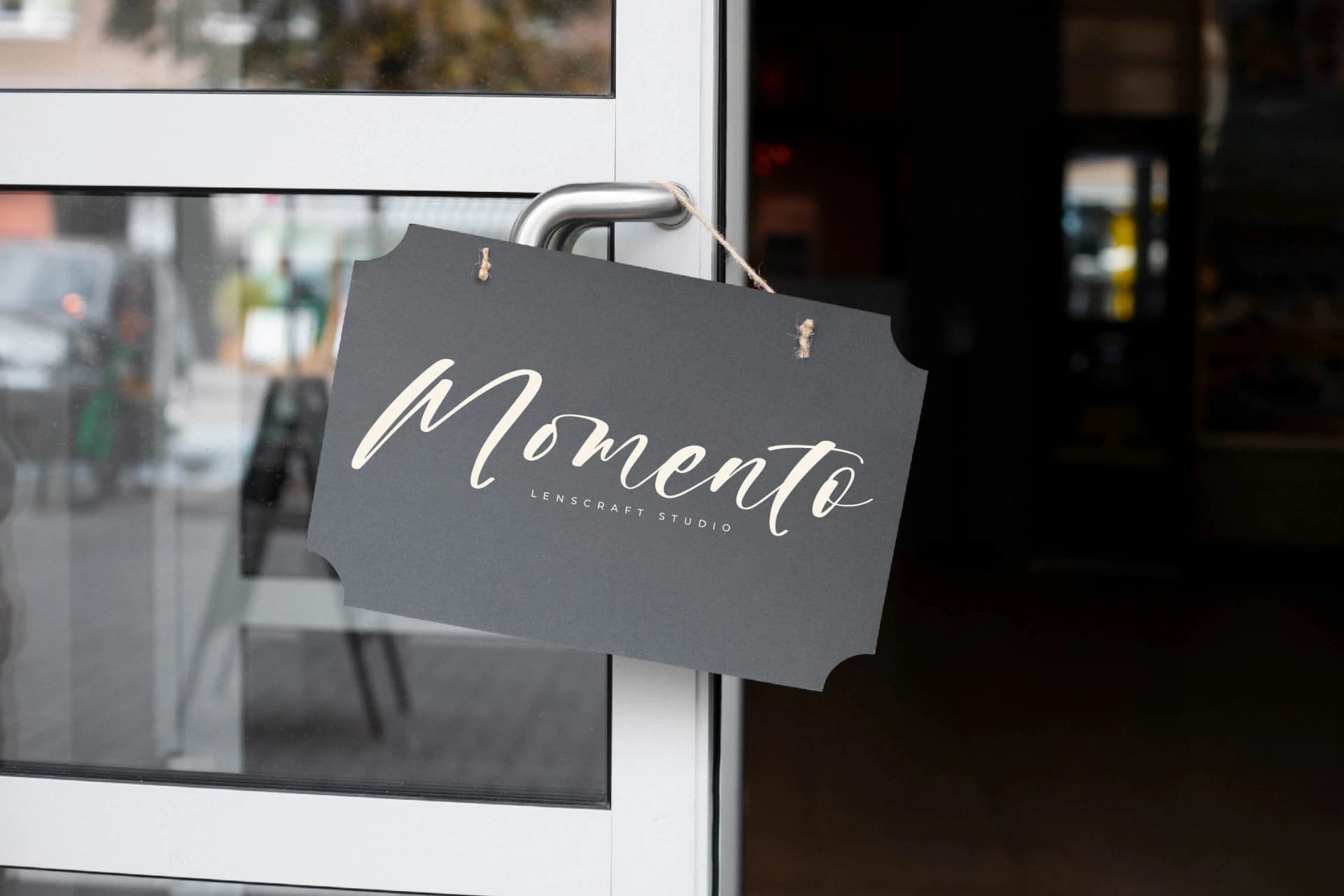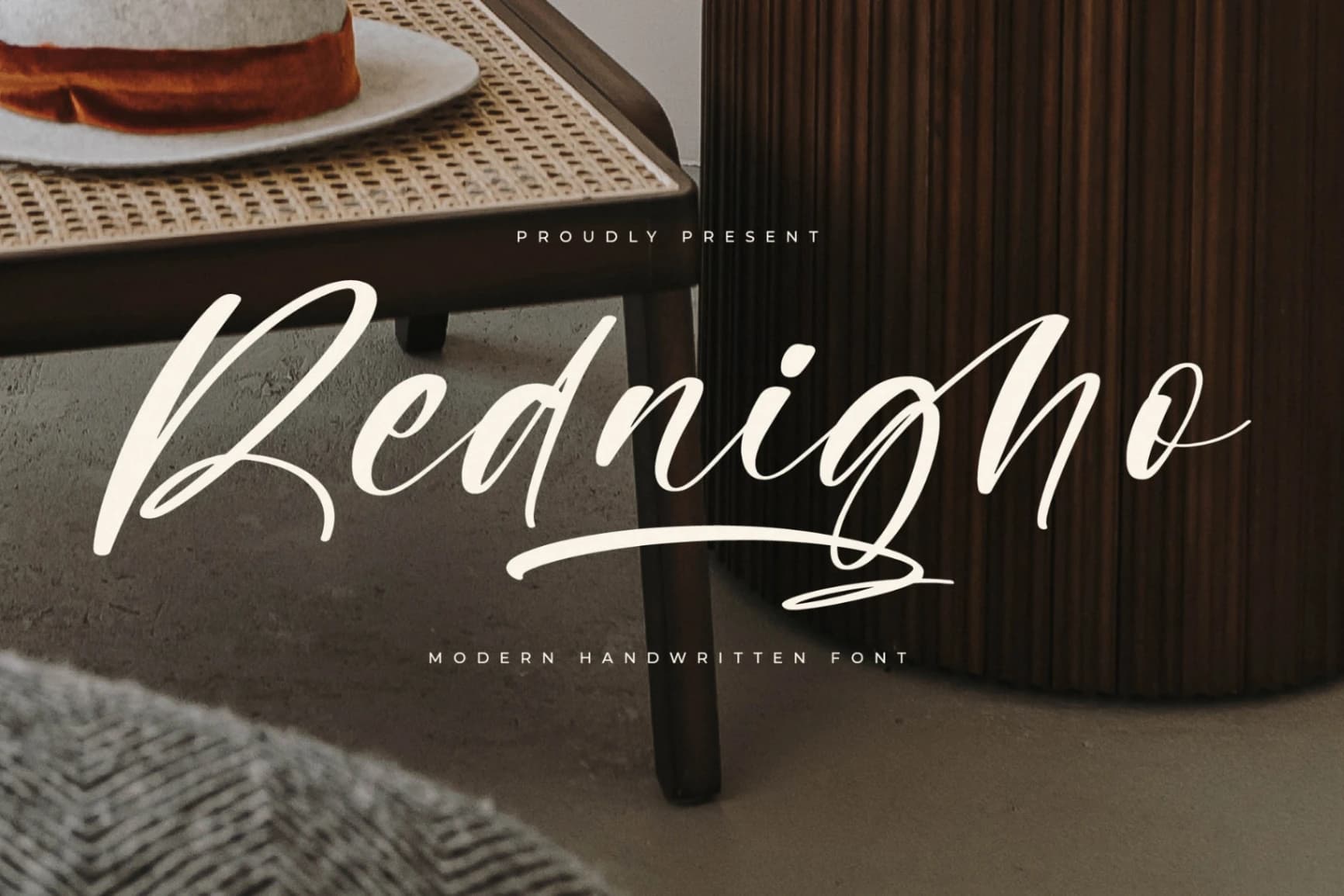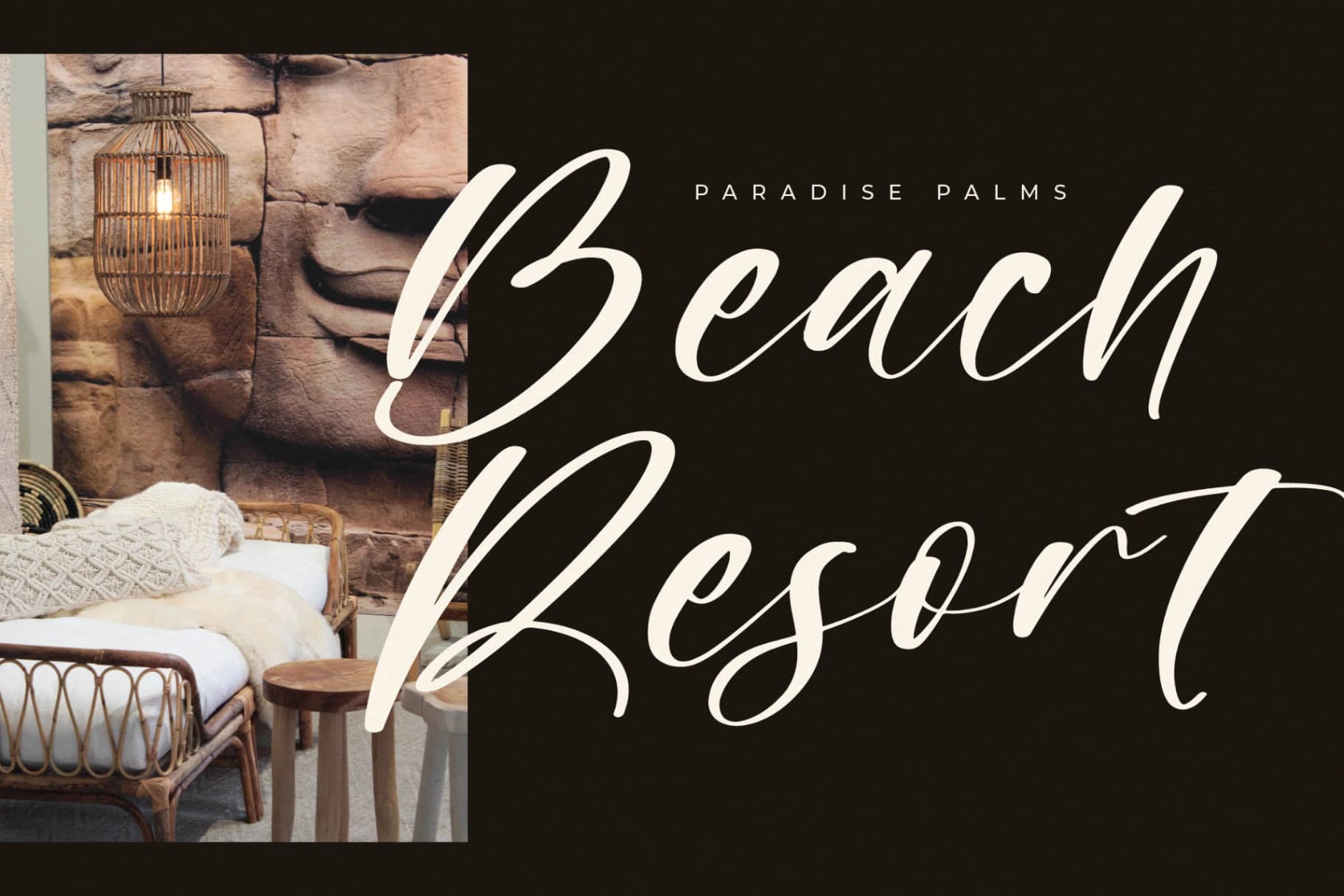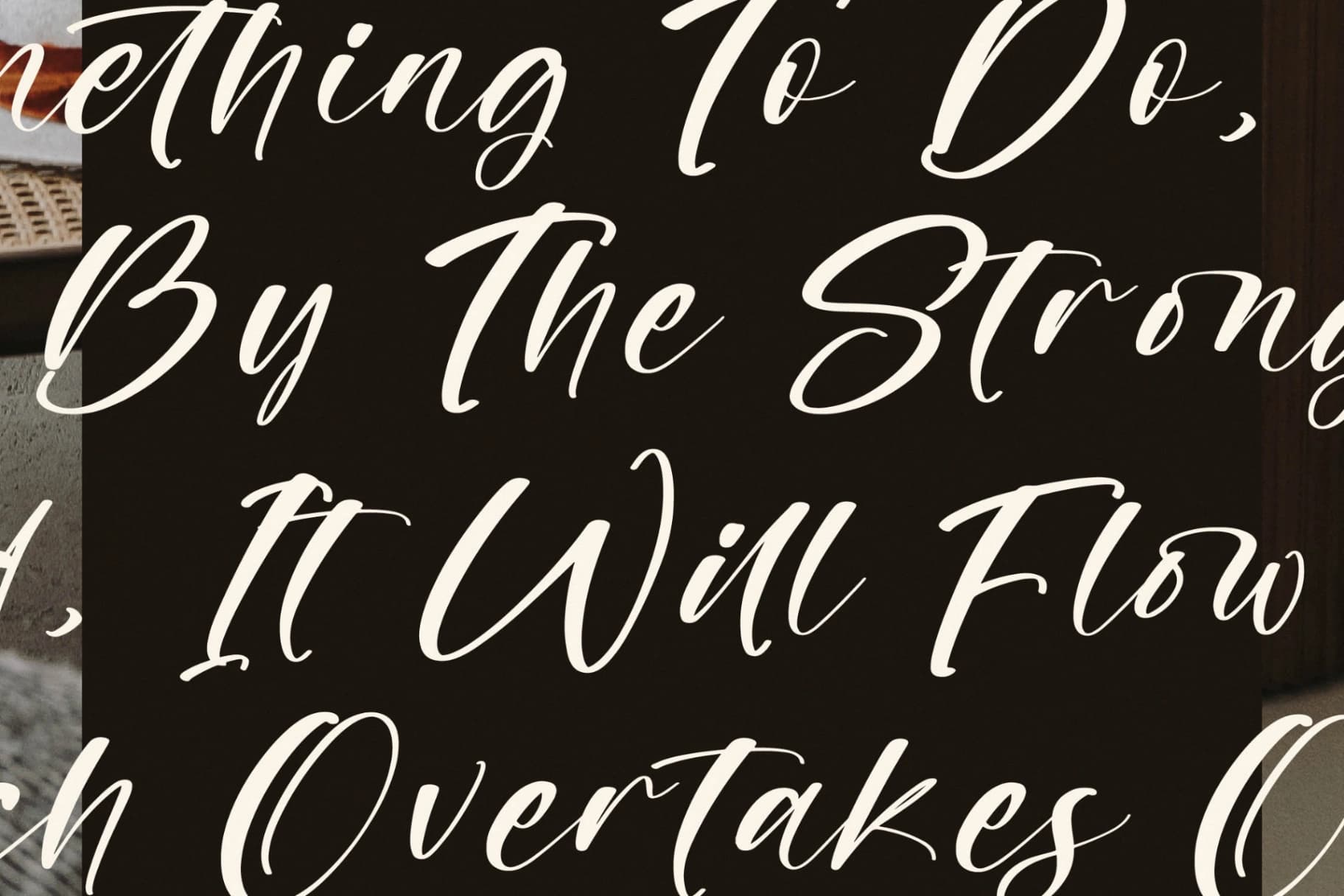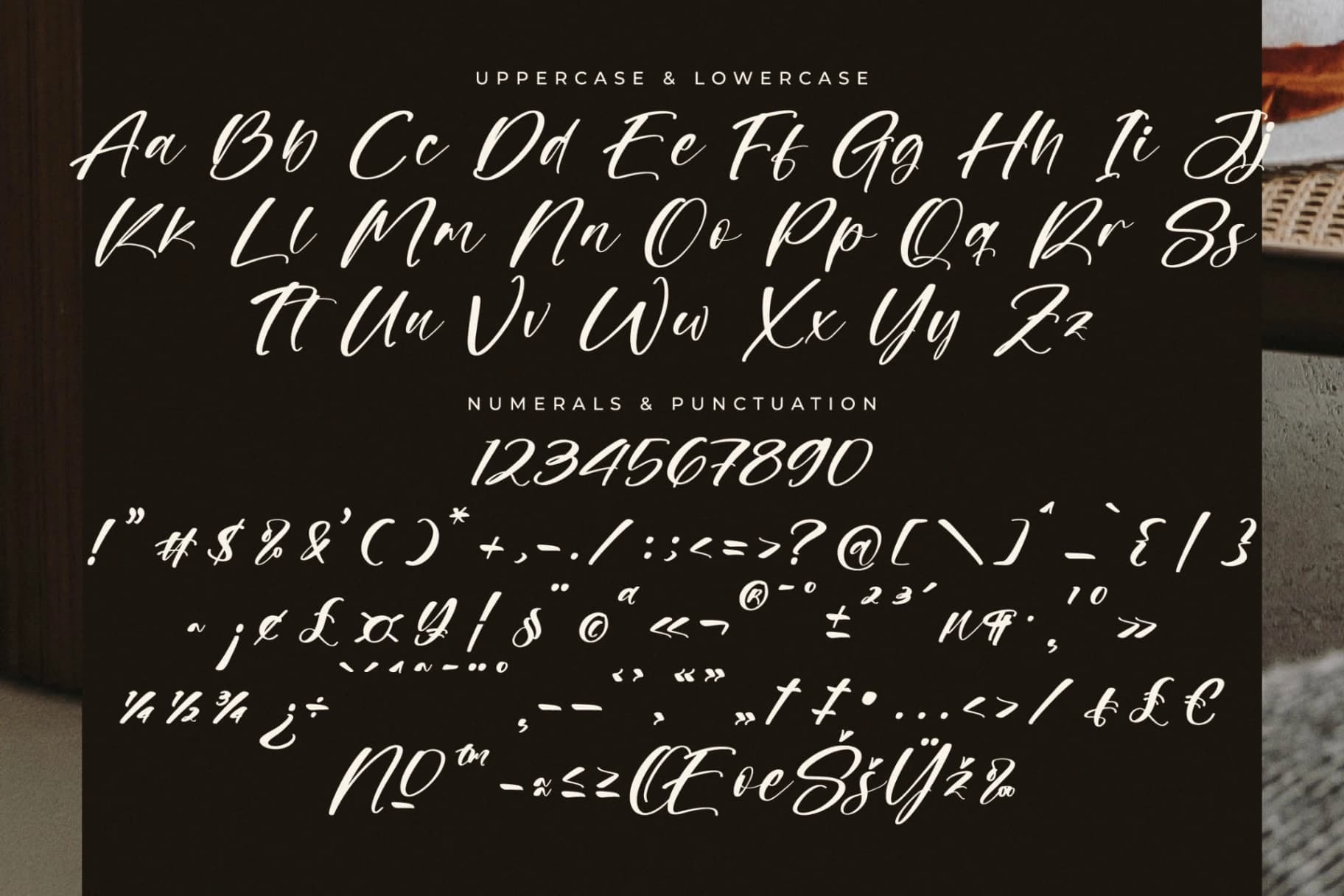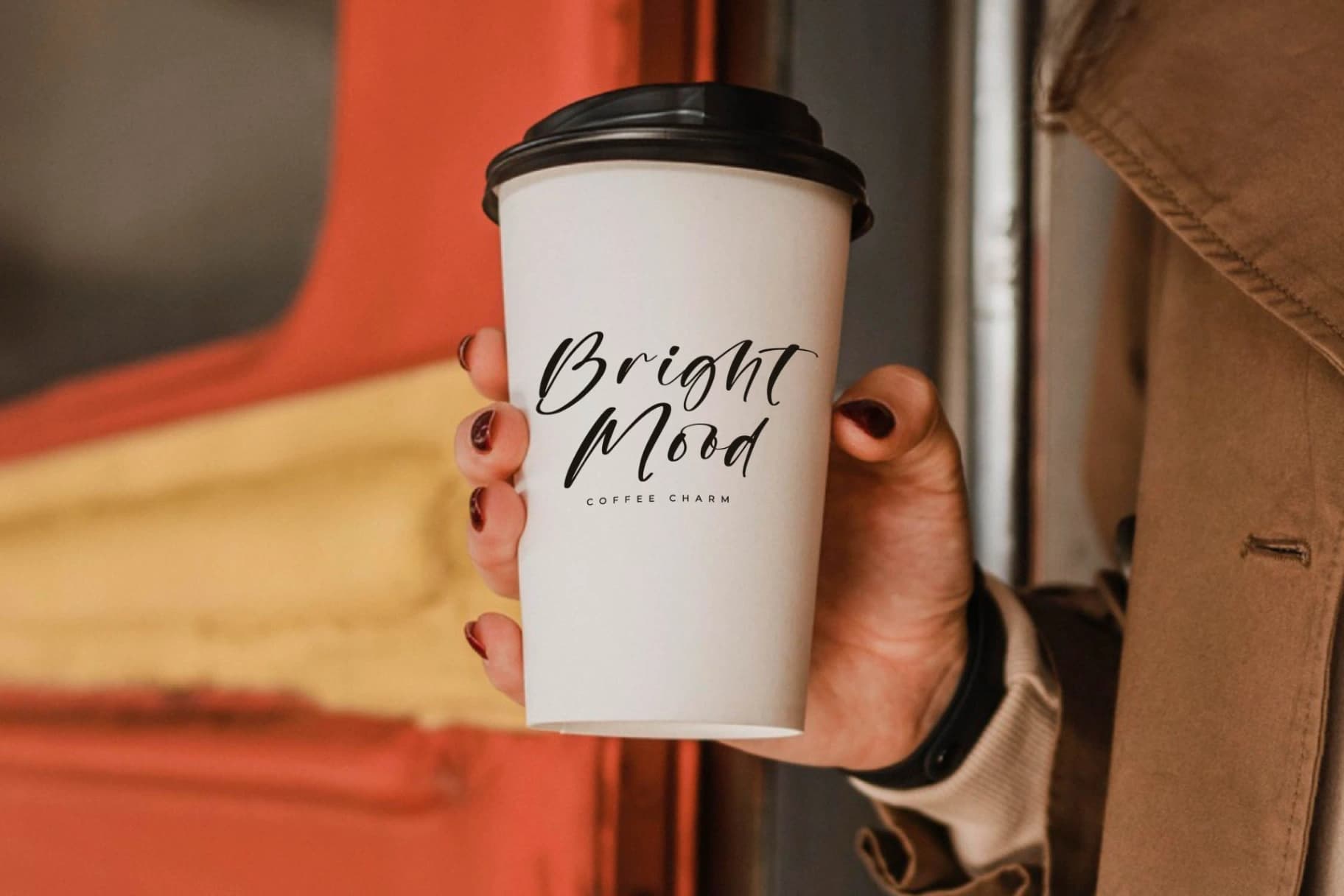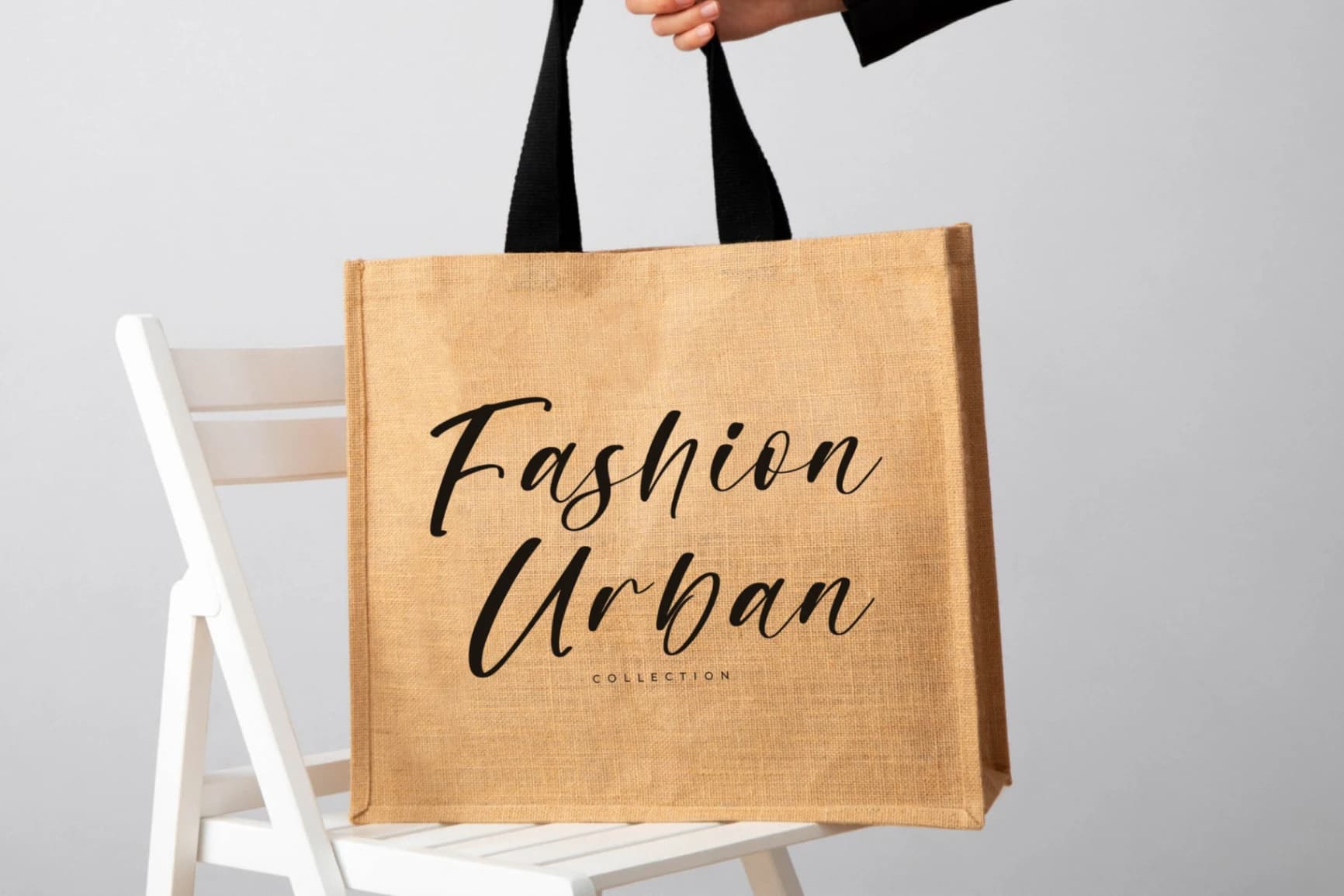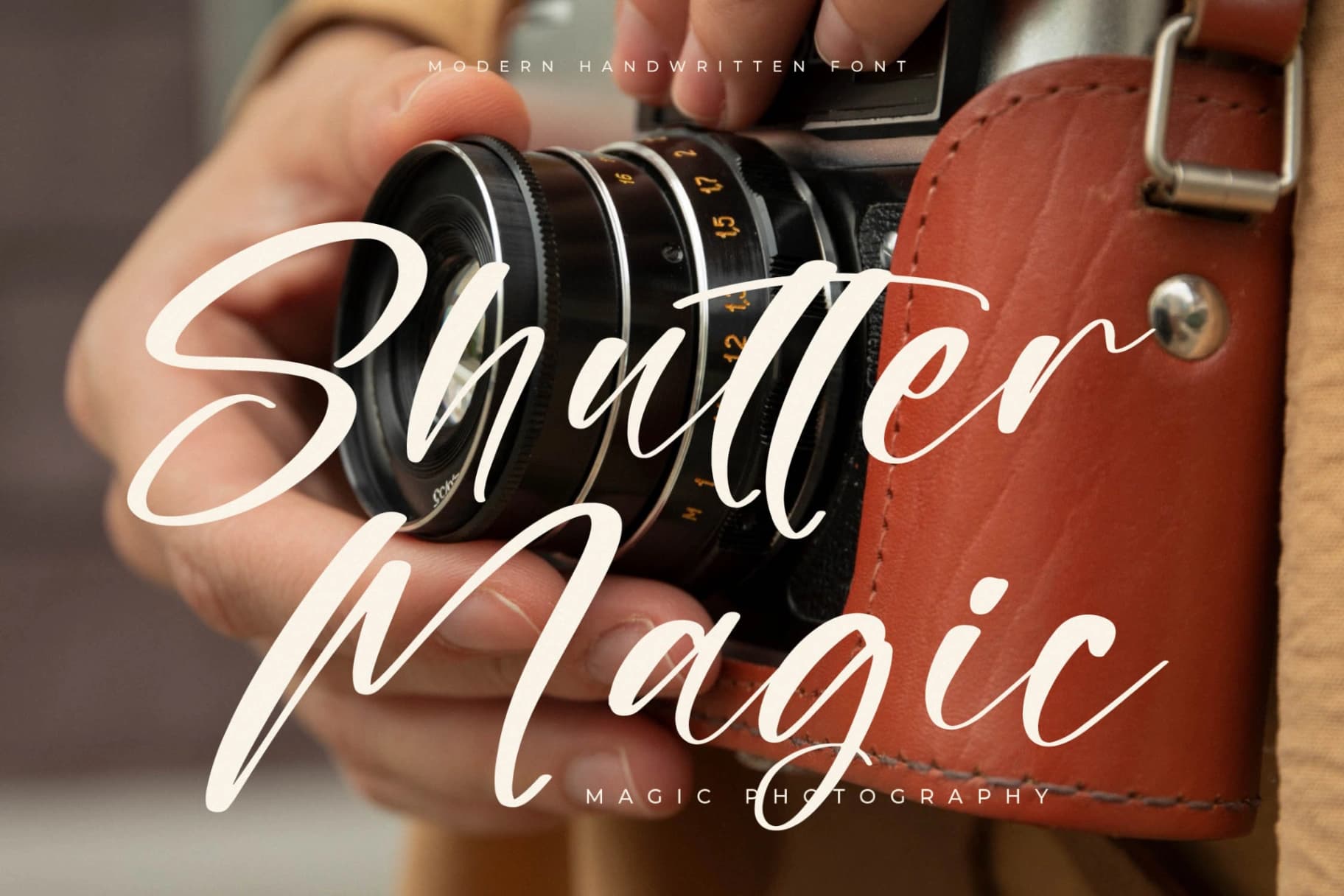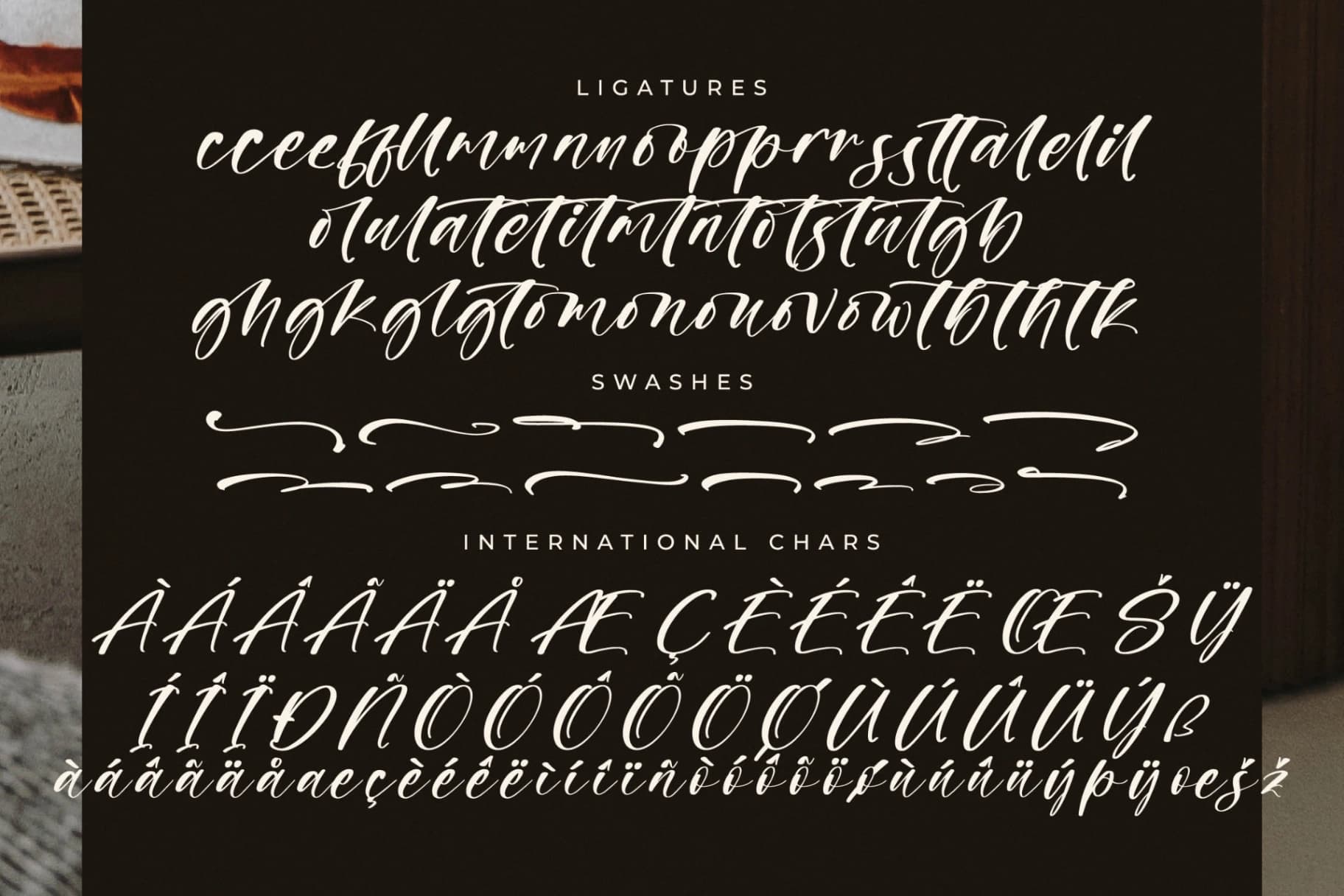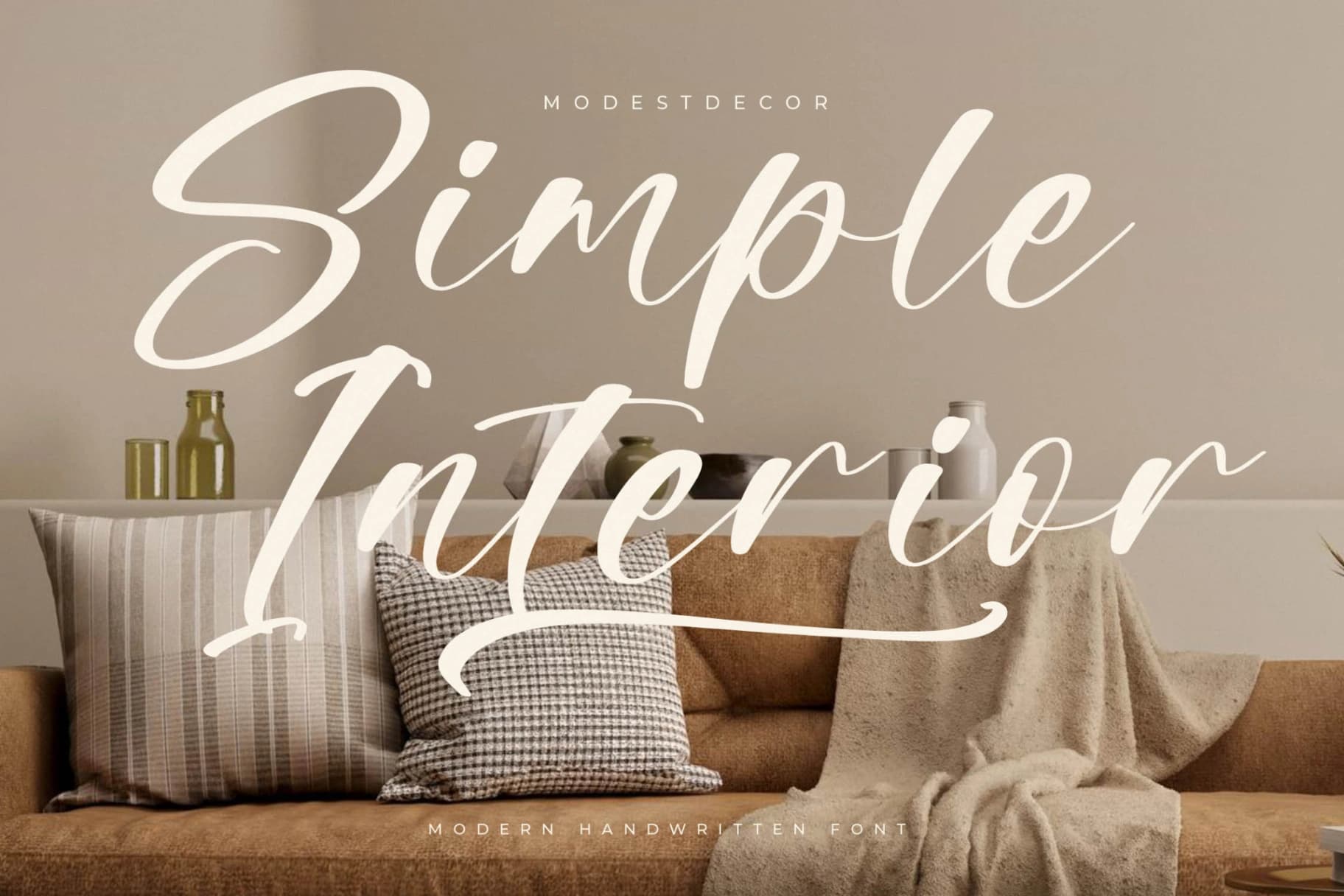
Rednigho – Modern Handwritten Font
Unlock unparalleled elegance and a touch of personal artistry with Font Rednigho – Modern Handwritten Font Script. This exquisite typeface captivates with its fluid, organic strokes and genuine handwritten charm, meticulously crafted to infuse your designs with warmth and distinctiveness. It's the perfect choice for projects demanding both a contemporary feel and a timeless, authentic appeal, immediately elevating any visual communication.
Discover the remarkable versatility embedded within every curve of Font Rednigho – Modern Handwritten Font Script. Featuring graceful connections and a balanced aesthetic, it offers exceptional readability without compromising its artistic flourish. This font is ideal for luxury branding, boutique product packaging, editorial design, wedding invitations, social media graphics, and personal branding, ensuring a high-impact presence across diverse mediums.
Expand your creative reach across borders with the inherent adaptability of this exquisite script. With its extensive multilingual support, Font Rednigho – Modern Handwritten Font Script adapts seamlessly across global markets, making it incredibly versatile for international projects. Designers can confidently deploy this font, knowing it will maintain its professional allure and legibility, catering to a broad and diverse audience.